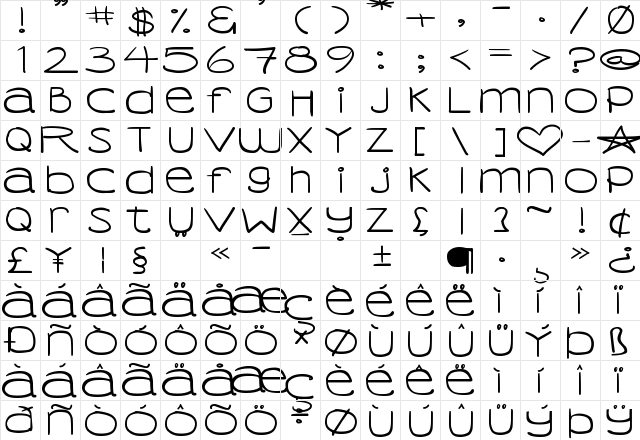
DJB COFFEE SHOPPE VENTI Regular
Design Context for DJB COFFEE SHOPPE VENTI Typeface
DJB COFFEE SHOPPE VENTI is a composed and adaptable typeface that performs quietly and consistently across a wide range of design contexts.